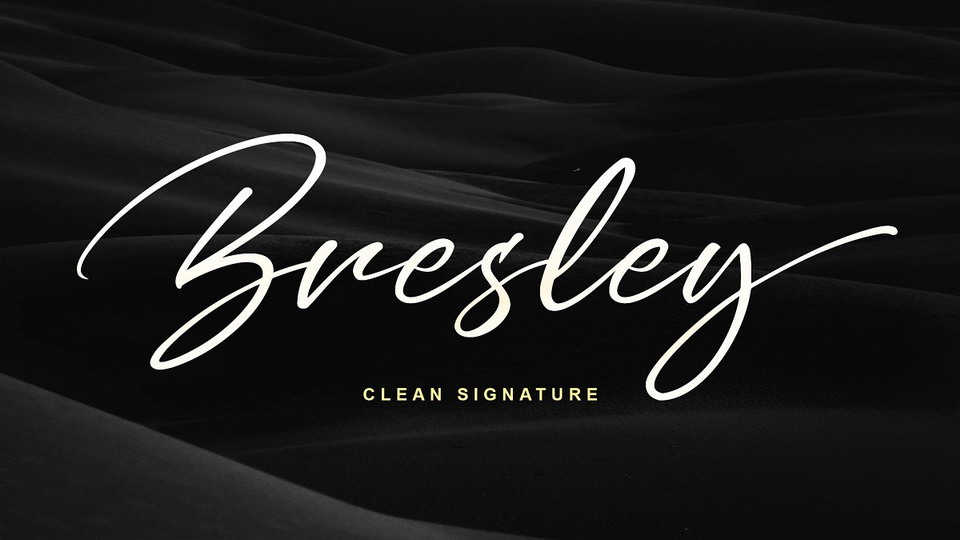
Download Bresley font, a clean stylish signature script. Good for signature logo, wedding invitation, romantic quote, logotype, poster, social media kit, book cover, tshirt design, packaging and any more.
Designer: Blankids Studio